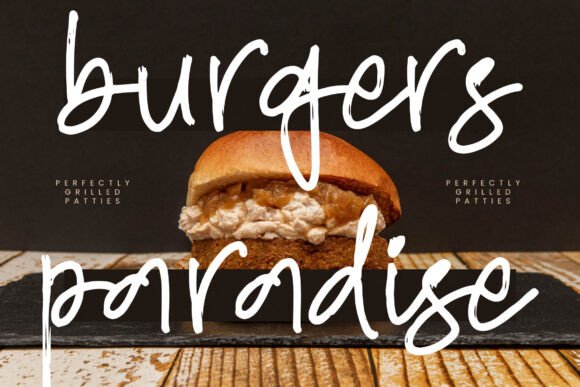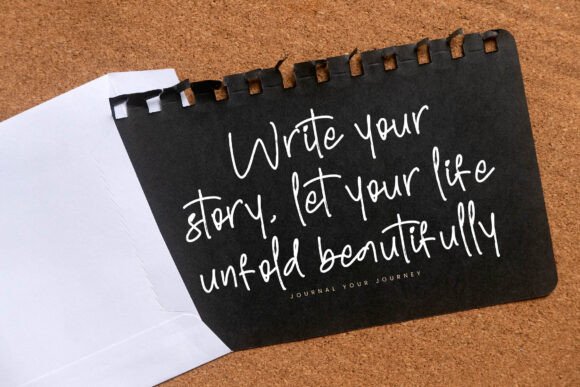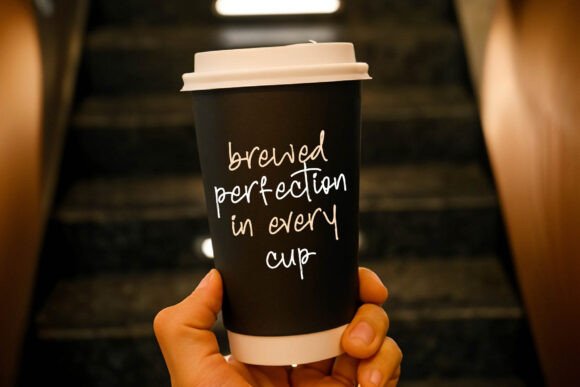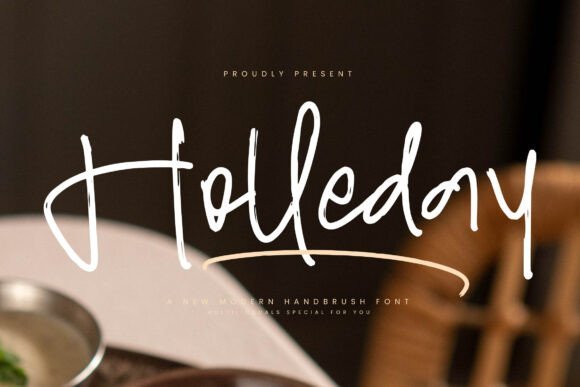
Introduction to Holleday Font
Infuse your projects with bold personality using Holleday, a modern hand-brush font with an artistic, casual flair.
Perfect for branding, packaging, greeting cards, and creative social media posts, its dynamic brush strokes deliver a trendy, authentic look that stands out beautifully .
Holleday Font offers exceptional quality and versatility, making it a valuable addition to your design toolkit. Whether you’re creating for personal projects or commercial use, Holleday Font delivers professional results.